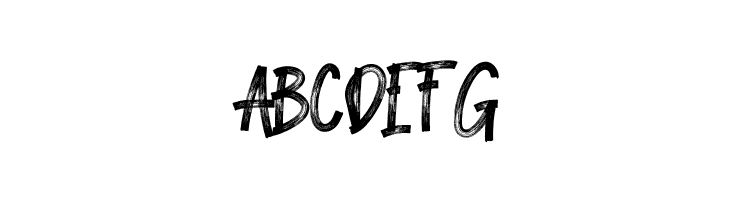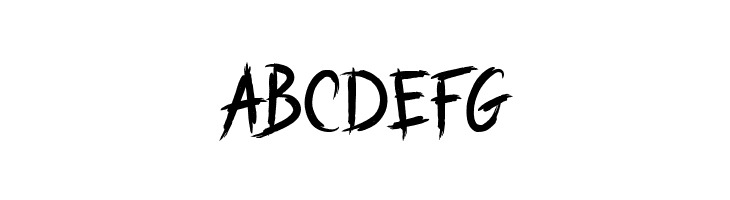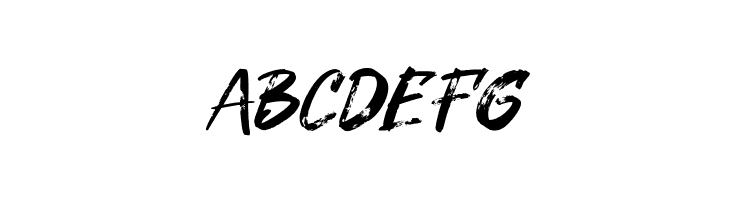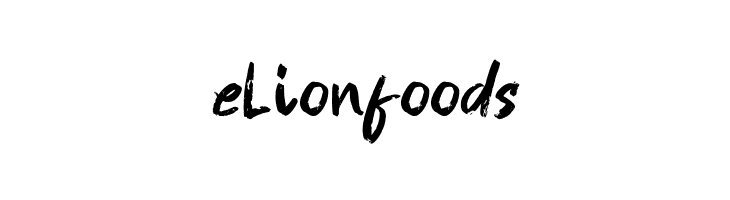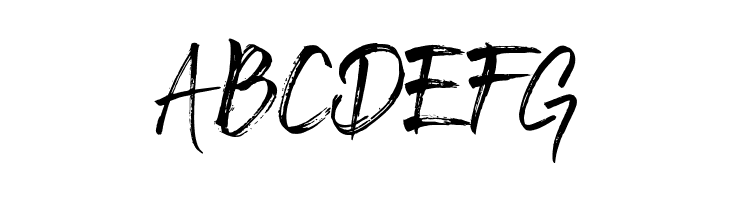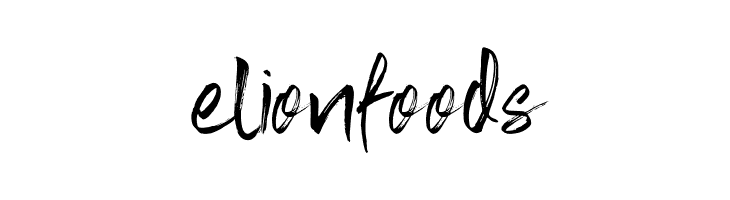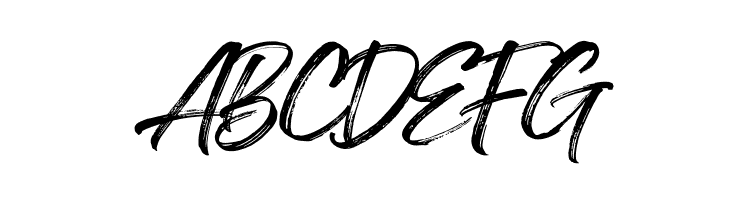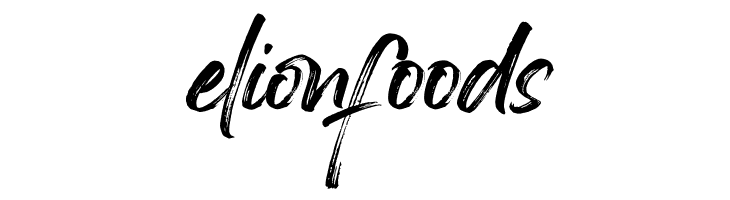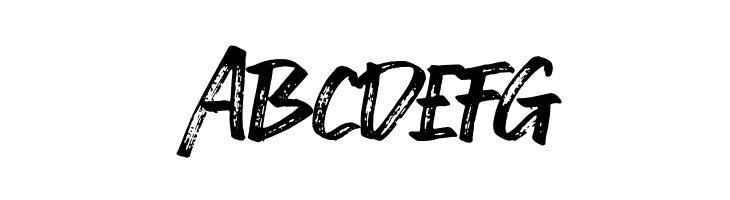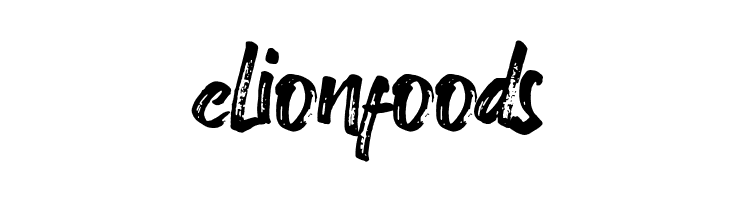
A dynamic brush-style font with expressive, energetic strokes.
A bold, hand-drawn font with dynamic, brush-like strokes.
A bold, textured, hand-drawn font with an energetic and playful style.
A bold, brush-style font with dynamic, handcrafted strokes.
A bold, expressive brush-style font with dynamic, hand-painted strokes.
A bold, dynamic brush-style font with fluid, expressive strokes.
A bold, brush-style font with dynamic, handwritten strokes.
A bold, expressive brush-style font with dynamic, hand-painted strokes.
A bold, brush-style font with dynamic, textured strokes.
A playful, brush-style font with rounded, hand-drawn strokes.